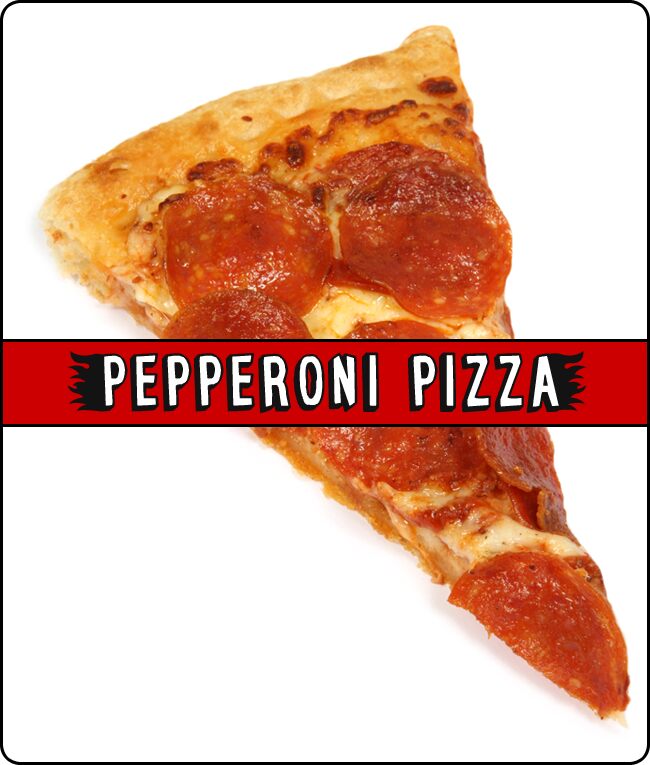
Pepperoni Pizza is a captivating display font that exudes a delightful fusion of classic and contemporary styles. Designed by Fred at 28fonts, this condensed typeface boasts a distinctive 3D decorative aesthetic, offering a visually striking and impactful presence. The bold, playful letterforms evoke the vibrant energy of a lively pizzeria, making it an ideal choice for branding, packaging, and promotional materials in the food and hospitality industries.
Pepperoni Pizza's versatility shines through its ability to command attention, whether adorning a menu, gracing a storefront signage, or elevating the design of a lively social media post.
Pepperoni Pizza